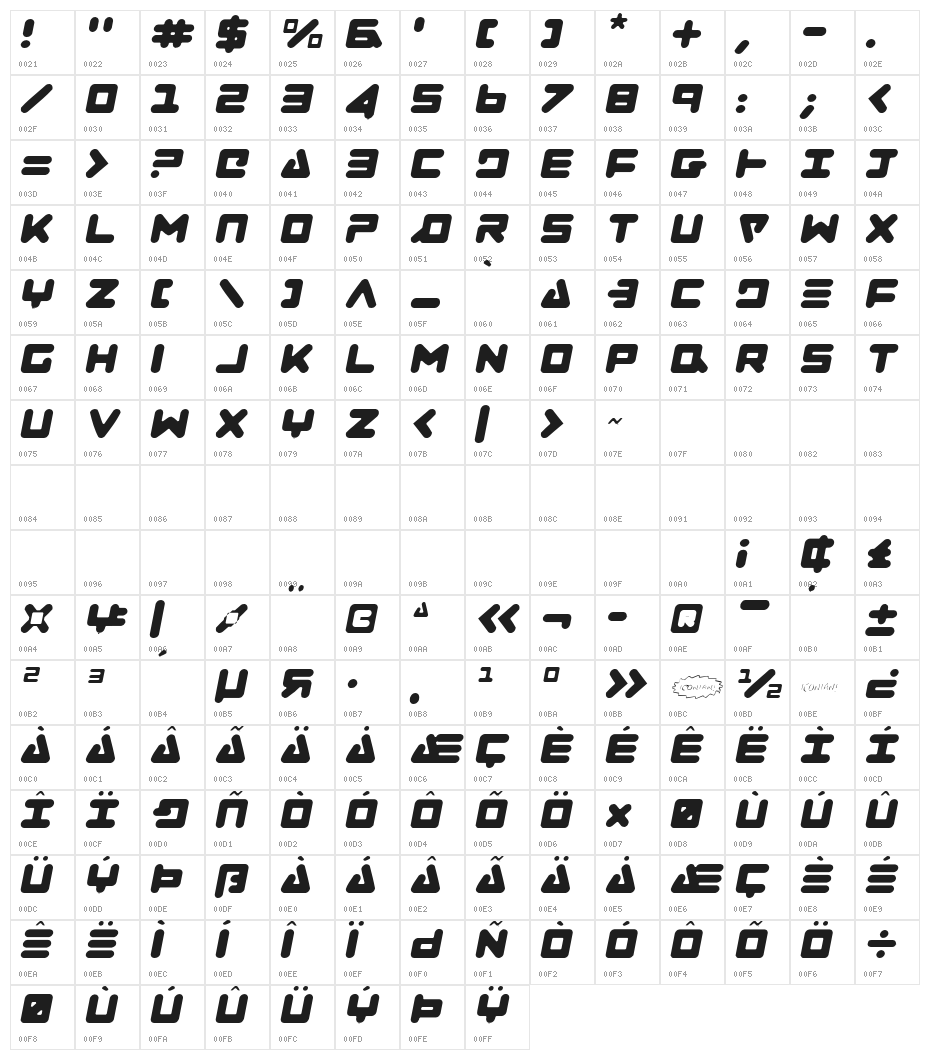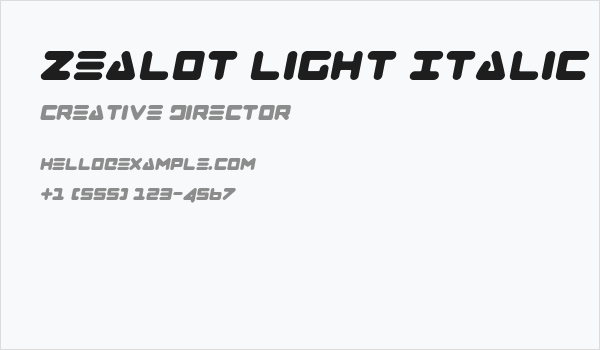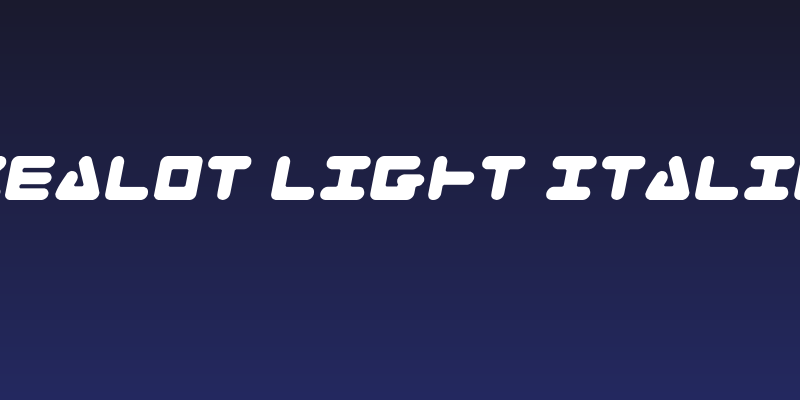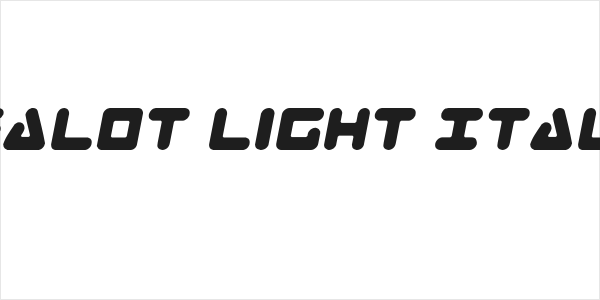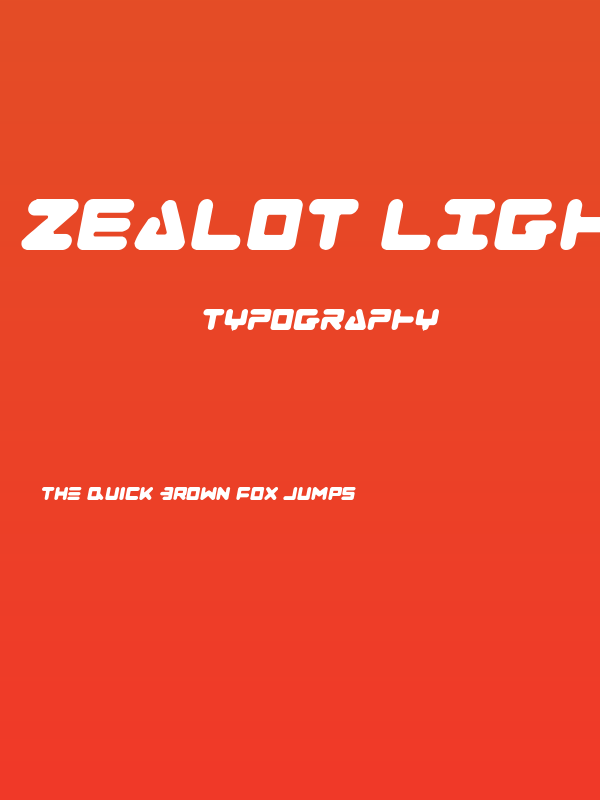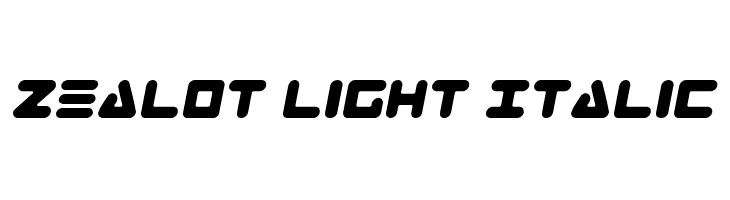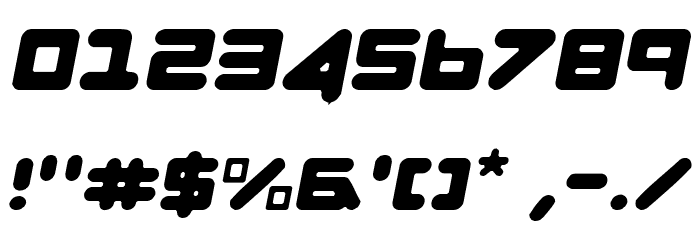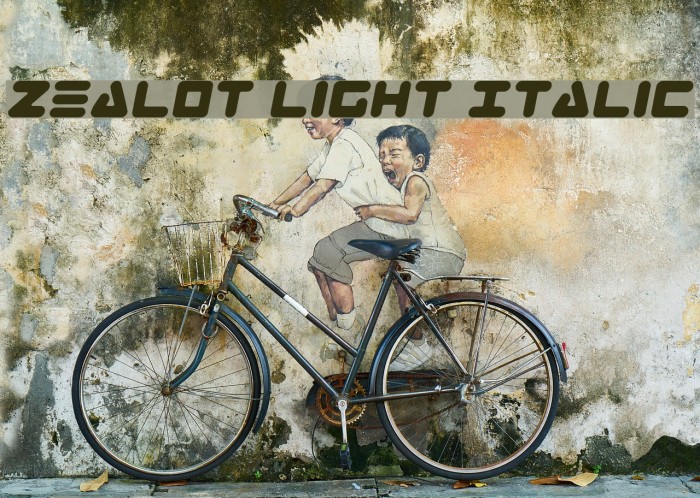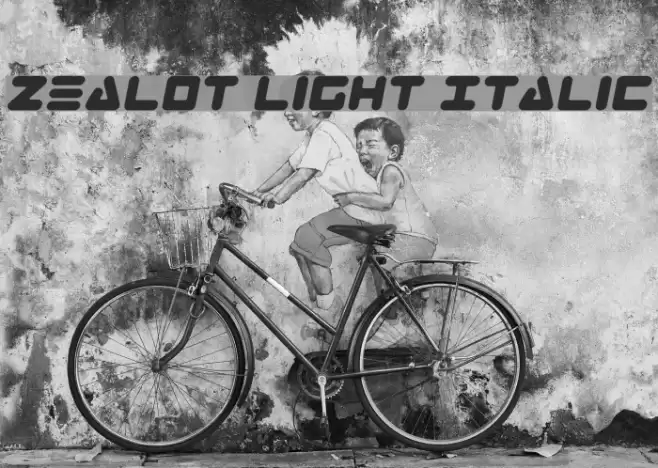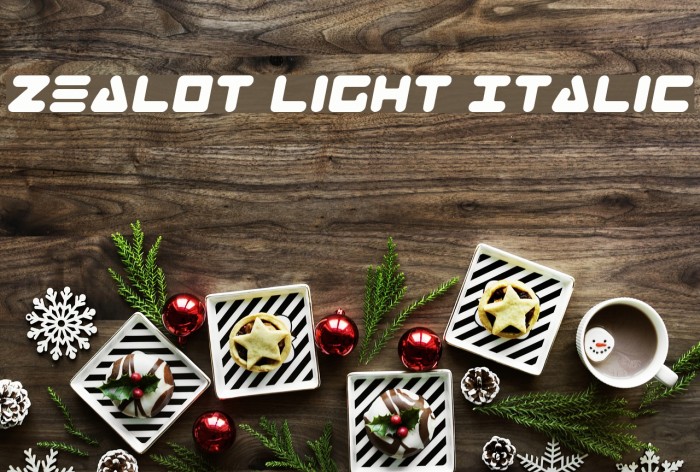
Zealot Light Italic Font
Zealot Light Italic Description
This font features a futuristic and bold design with rounded edges and a slightly italicized slant, giving it a dynamic and modern appearance. The characters are uniformly thick, creating a strong visual impact. The uppercase and lowercase letters maintain a consistent style, with unique geometric shapes that add to its distinctiveness. The numbers and special characters follow the same design principles, ensuring a cohesive look across all elements. This font is ideal for projects that require a modern, tech-inspired aesthetic.
| Proposed Projects | Ideal for technology branding, sci-fi posters, video game titles, and modern advertising. |